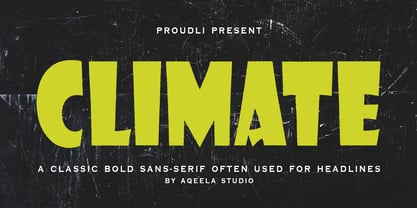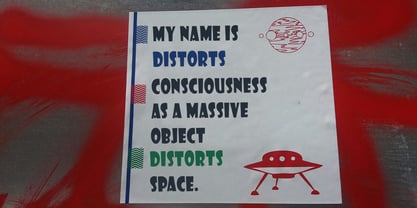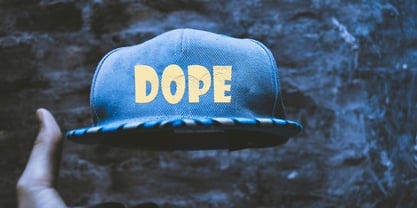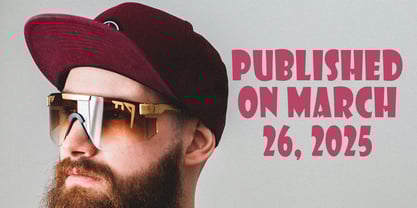
Climate
by Aqeela Studio
The Climate Font Family was designed by Muhammad Nasir and published by Aqeela Studio. Climate contains 1 styles.
"Climate" isn't just a font; it's an atmospheric statement. This bold, sans-serif typeface, with its subtly distressed texture, evokes the feeling of weathered signage or vintage print, yet commands attention with its strong, unwavering presence.
Imagine the bold headlines of a bygone era, where every letter was carved with purpose and character. "Climate" channels that same energy, offering a touch of nostalgic grit while remaining undeniably modern. Its robust letterforms are built for impact, perfect for headlines that demand to be seen, logos that resonate, and designs that leave a lasting impression.
Think of it as the typographic equivalent of a well-worn leather jacket – effortlessly cool, undeniably bold, and imbued with a story. "Climate" isn't afraid to make its voice heard, adding a touch of rebellious spirit and timeless appeal to any project.
Whether you're aiming for vintage charm, industrial strength, or simply a font that refuses to be ignored, "Climate" delivers a powerful and evocative typographic experience.
Designers: Muhammad Nasir
Publisher: Aqeela Studio
Foundry: Aqeela Studio
Design Owner: Aqeela Studio